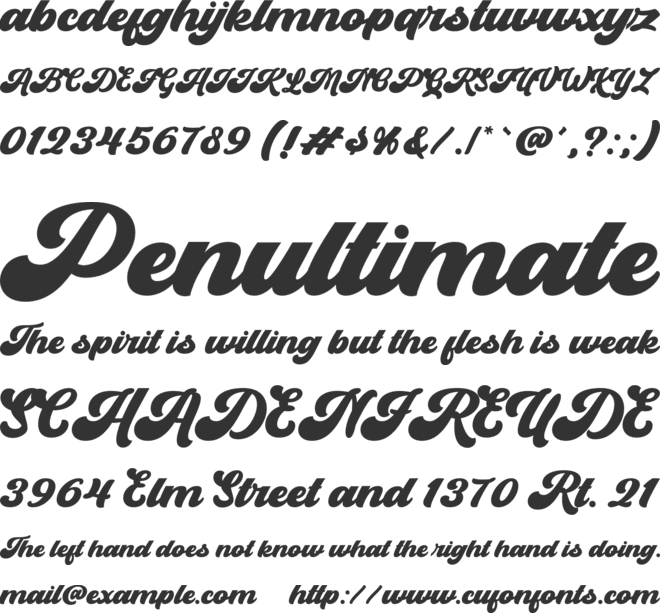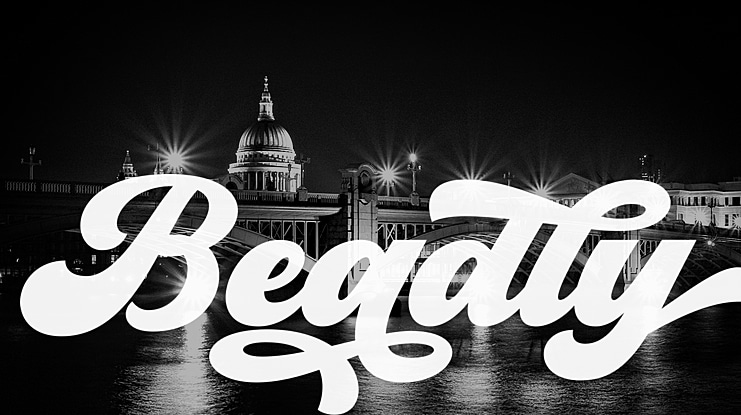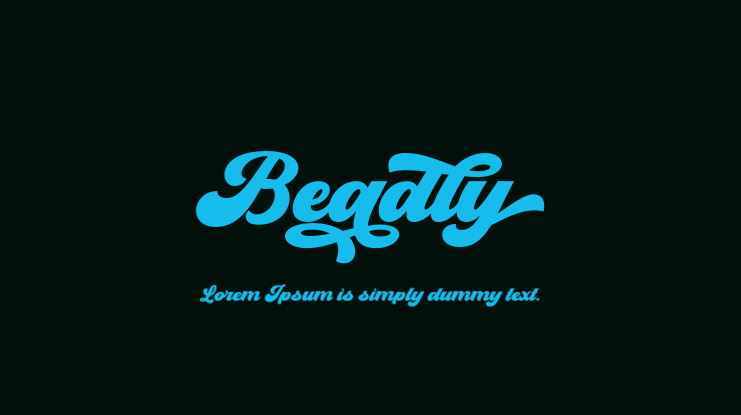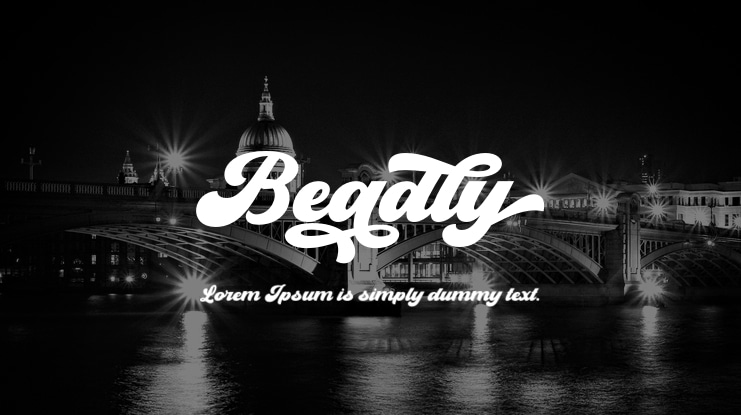
Beadly Font
Beadly. A retro bold script that will bring you back to the 70s feel. This typeface has the extrude version so you can create your retro effect font with ease. This font is perfectly made to be applied especially in logos, and other various formal forms such as invitations, labels, logos, magazines, books, greeting/wedding cards, packaging, fashion, make-up, stationery, novels, labels, or any type of advertising purpose.